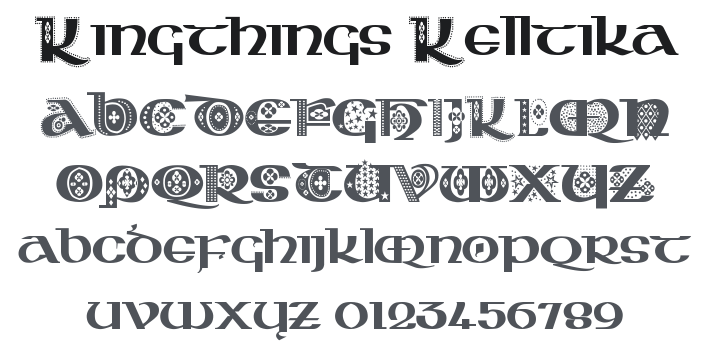
Kingthings Kelltika Font
About Kingthings Kelltika
This is based on characters from the Book of Kells and other calligraphic works. I wanted to make a font based on these letter forms for a long time - it has taken me a while to get it right and I'm afraid that it is subject to change at a whim - as are all my fonts! There are no real capital letters in the documents that I have been working from, so I have, as there, enlarged the lower case, dropped the base line and decorated them. The decorations really need to be larger than 36pt to show up.